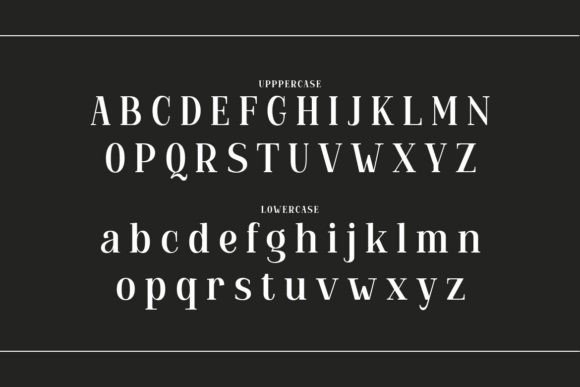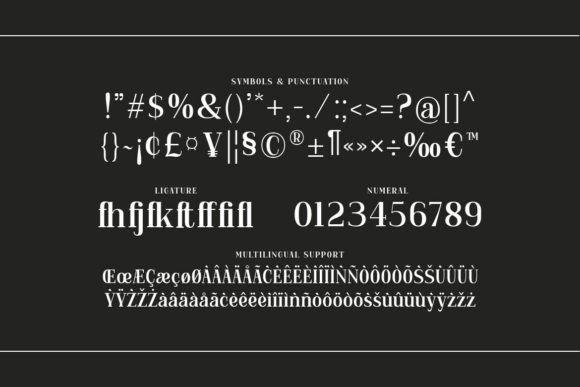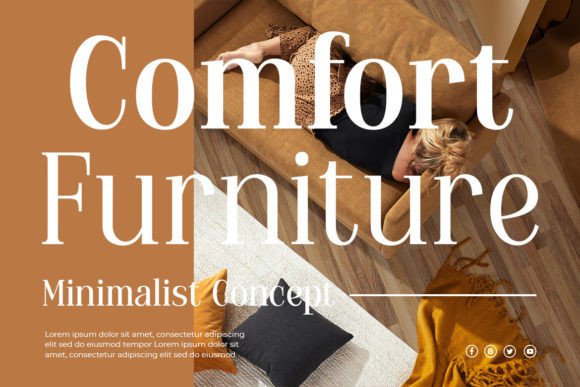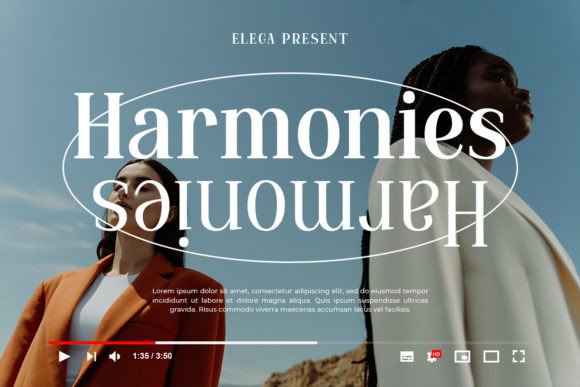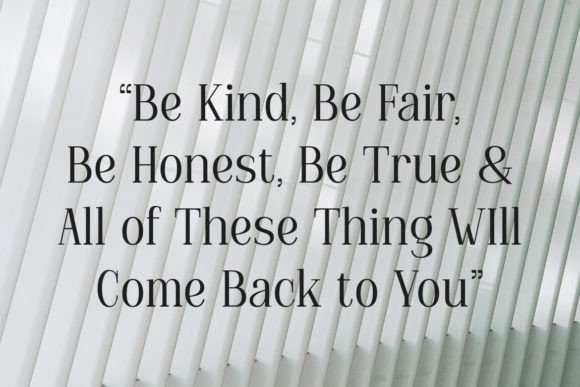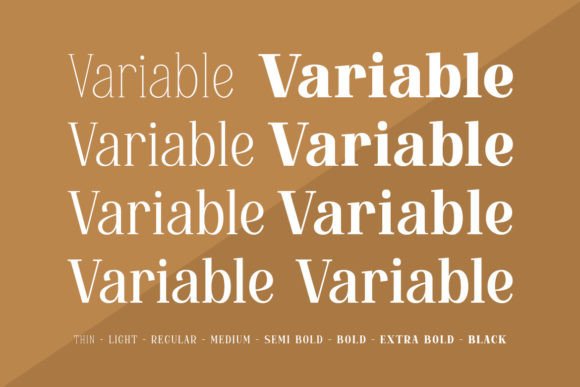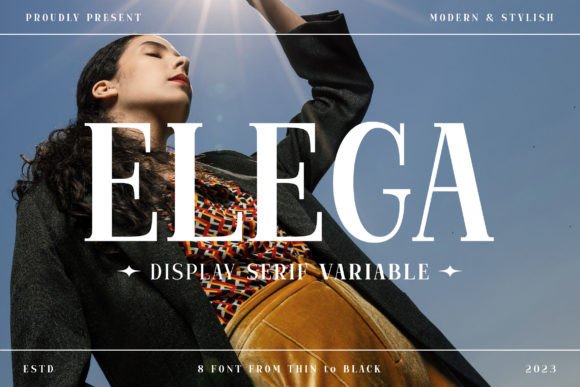
Introducing Elega Font: Elevate Your Designs with Sophistication and Versatility
In the world of typography, a font can make or break a design. For designers and crafters, finding the perfect font that embodies both elegance and versatility can be a daunting task. However, with the introduction of “Elega” – a display serif variable font, you can now elevate your designs with a touch of sophistication and modern appeal. In this article, we’ll dive into the world of Elega and explore its features, benefits, and endless creative possibilities.
The Birth of Elega: A Font that Exudes Timeless Charm and Modern Appeal
Elega is a display serif variable font that boasts elegant serifs and fluid variable weight options. Its unique design allows it to seamlessly blend traditional charm with modern sensibilities, making it an ideal choice for designers seeking to create captivating and inspiring works. With Elega, you can add a touch of sophistication to your designs, whether you’re working on headlines, logos, posters, or editorial layouts.
Endless Creative Possibilities with Elega’s Variable Font Features
One of the standout features of Elega is its variable font capabilities. This means that you can customize the font to suit your design needs, adjusting weight, width, and more to create a multitude of typographic styles. From bold and expressive to subtle and refined, Elega’s versatility empowers you to experiment with different variations, ensuring that your designs always captivate and inspire.
Key Features of Elega Font:
- Variable Font: Adjust weight, width, and more to create custom typographic styles
- Elegant Serifs: Add a touch of sophistication and traditional charm to your designs
- Fluid Weight Options: Seamlessly transition from bold and expressive to subtle and refined
- Display Serif: Ideal for headlines, logos, posters, and editorial layouts
Applications of Elega Font: Where to Use this Versatile Font
Elega’s versatility makes it suitable for a wide range of design applications. Here are some ideas to get you started:
- Headlines and Titles: Use Elega’s bold and expressive variations to create eye-catching headlines and titles
- Logo Design: Add a touch of sophistication to your logos with Elega’s elegant serifs and fluid weight options
- Posters and Flyers: Create captivating posters and flyers with Elega’s display serif and variable font features
- Editorial Layouts: Use Elega’s refined and subtle variations for editorial layouts, such as magazines and newspapers
Benefits of Using Elega Font: Why Choose this Font?
So, why choose Elega font for your design projects? Here are some benefits to consider:
- Unique and Memorable Designs: Elega’s elegant serifs and variable font features help you create unique and memorable designs
- Time-Saving: With Elega’s versatility, you can experiment with different variations without having to switch fonts
- Consistency: Use Elega across multiple design projects to maintain consistency and build brand recognition
- Easy to Use: Elega’s user-friendly design makes it easy to customize and adjust to suit your design needs
Conclusion: Elevate Your Designs with Elega Font
In conclusion, Elega font is a game-changer for designers and crafters seeking to elevate their designs with sophistication and versatility. With its elegant serifs, fluid variable weight options, and endless creative possibilities, Elega empowers you to create captivating and inspiring works. Whether you’re designing headlines, logos, posters, or editorial layouts, Elega font is the perfect choice for those seeking to add a touch of timeless charm and modern appeal to their designs.